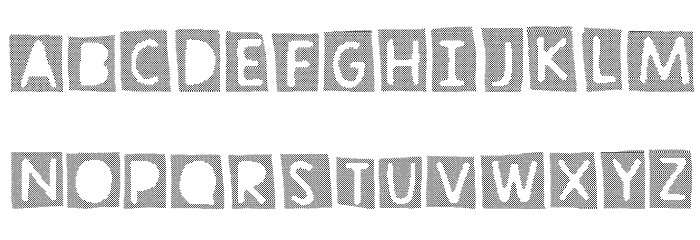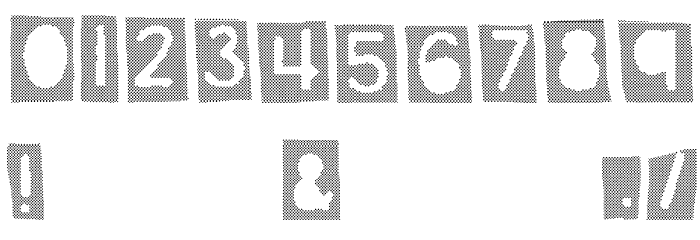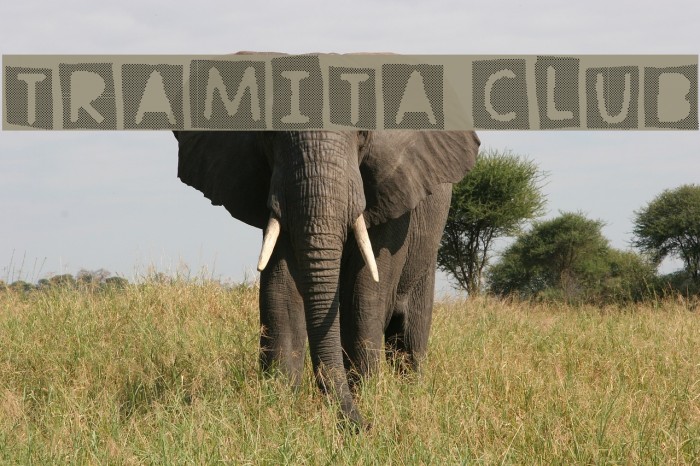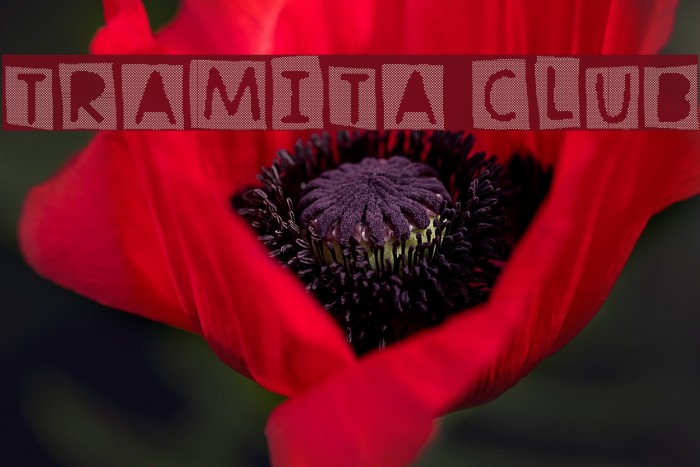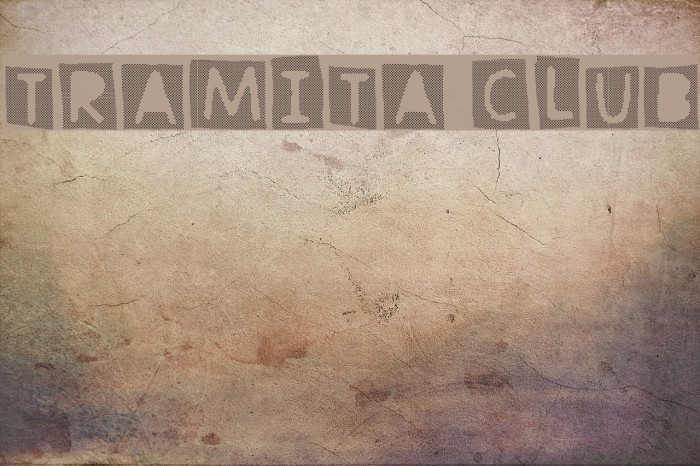
Tramita club Font
This font features a playful and artistic style, with each character enclosed in a square, giving it a unique and distinctive appearance. The letters are bold and slightly irregular, reminiscent of cut-out paper shapes, which adds a handcrafted feel. The uppercase and lowercase letters maintain a consistent style, with rounded edges and varying stroke thicknesses that contribute to its quirky charm. The numbers and special characters follow the same design principles, ensuring a cohesive look across all elements. This font's creative and informal nature makes it ideal for projects that require a fun and engaging visual impact.
A playful, handcrafted font with bold, irregular shapes enclosed in squares.
- Proposed Projects: Ideal for children's books, creative posters, playful branding, and artsy invitations.
- Overall Style: Playful, Artistic
- Use Case: Headlines, Posters, Branding